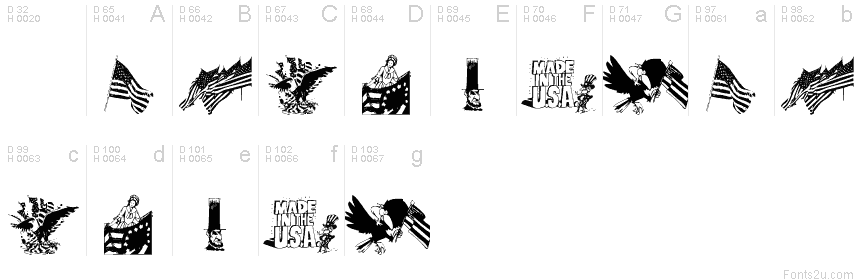
KR All American
KR All American font by Kat Rakos is a free patriotic dingbat typeface. Its inky, slightly weathered illustrations of American flags and signage icons feel like they were stamped straight from a parade poster, giving your layouts a bold, star-spangled punch without needing extra artwork. Each mark is packed with texture and motion, so even a single glyph can stand in as a full graphic element.
Using KR All American, you can quickly build Fourth of July flyers, parade banners, school history projects, BBQ invitations, election-themed handouts, and social media graphics with a unified look. This free font works beautifully when the dingbats are oversized as focal art, paired with a clean sans-serif for the text to keep everything readable and balanced.